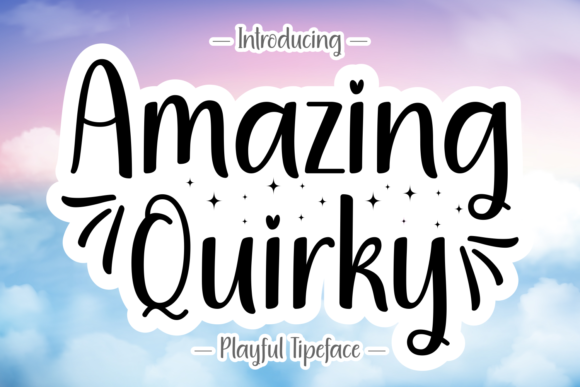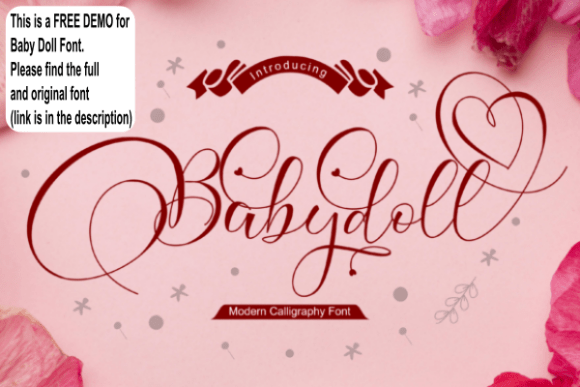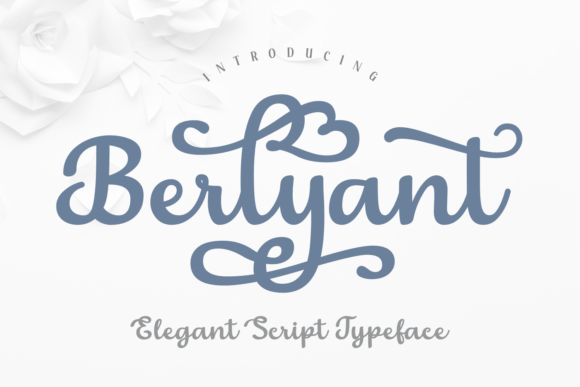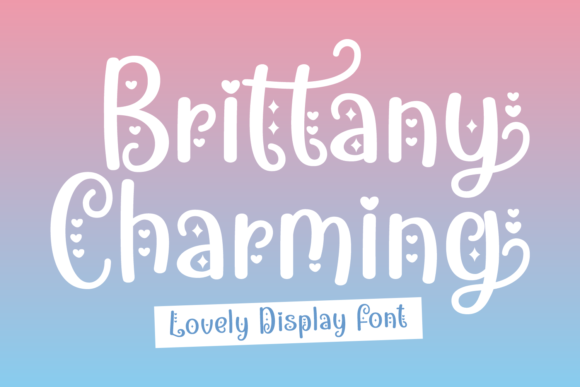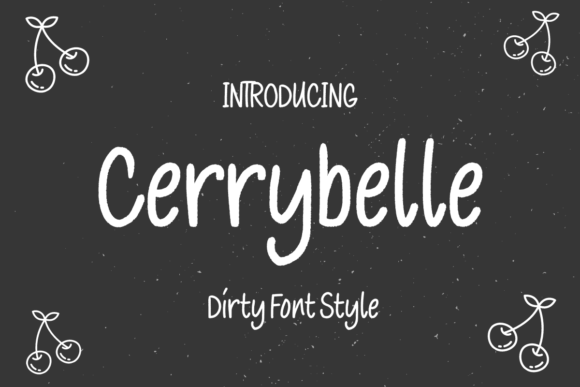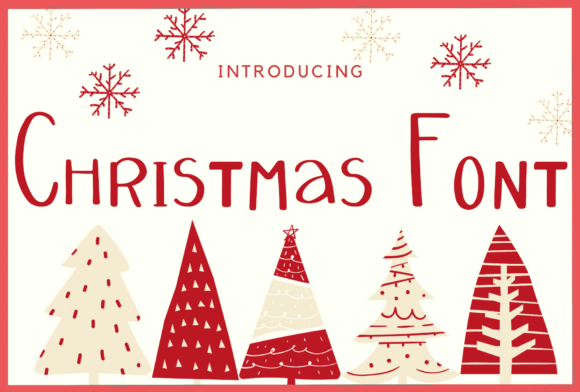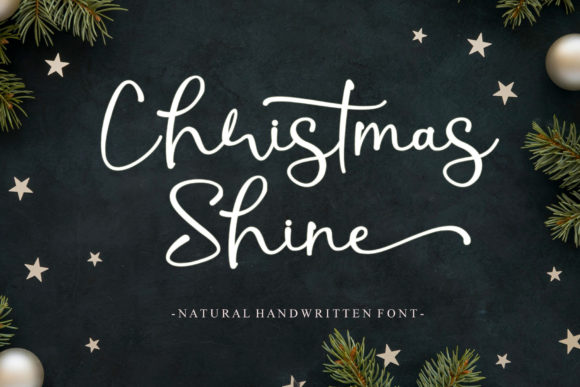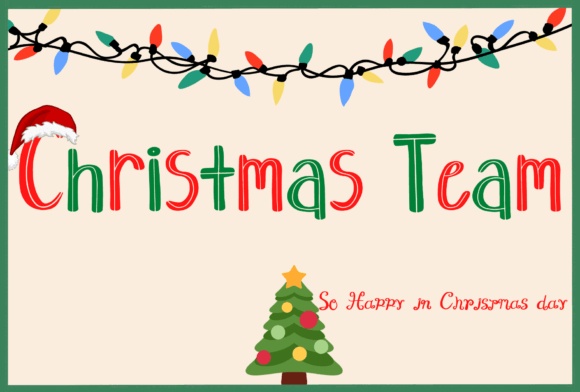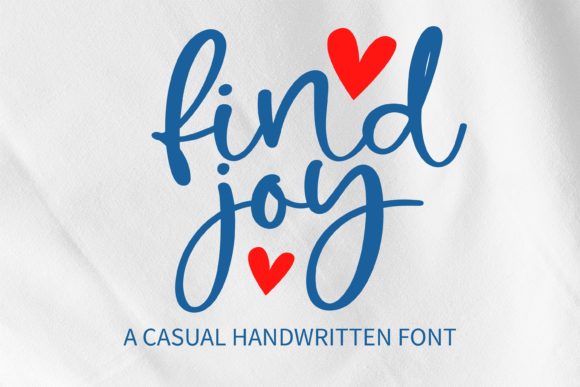
Free Handwritten Fonts: 26 Best Cute & Casual Picks (2026)
Free handwritten fonts cover a different mood than formal script: think casual notes, playful cards, and warm, personal branding rather than black-tie elegance. Here are 26 free handwritten fonts with a cute, friendly feel, several built specifically for kids’ projects, classroom material, and seasonal cards.
Quick Picks
| Best Overall | Cerrybelle – a sweet, simple handwritten font that fits almost any project |
| Best for Kids | Elliane – a friendly style made for children’s themed designs |
| Best for Christmas | Christmas Shine – a refined script for holiday branding and cards |
| Most Playful | Something – a cute, casual, relaxed handwritten font for notes and cards |
When to Reach for a Casual Handwritten Font
Free handwritten fonts in this cuter, more casual register work best when a project wants to feel personal and approachable rather than formal. That covers a lot of ground: birthday cards, classroom worksheets, planner headers, and small-batch product labels all benefit more from a friendly handwritten font than a polished wedding script. Several fonts below were purpose-built for children’s activities and school projects, so they stay legible even for young readers.
26 Free Handwritten Fonts
1. Anastasia
Best for: General Design
Anastasia is a playful and well-rounded handwritten font. This gentle font will look gorgeous on a variety of design ideas.
2. Babydoll
Best for: General Design
Babydoll is a romantic and sweet handwritten font with characters and alternates that seem to dance along the baseline.
3. Amazing Quirky
Best for: General Design
Amazing Quirky is a fun and playful handwritten font. It looks lovely on a variety of design ideas that require a trendy touch.
4. Berlyant
Best for: General Design
Berlyant is a beautiful and distinct script font.
5. Brittany Charming
Best for: General Design
Brittany Charming is a chic and whimsical handwritten font. Featuring characters that dance along the baseline, this font will add a luxury spark to any design project you wish to create!
6. Sparkle Shine
Best for: Quote Graphics
Sparkle Shine is a cute and simple Handwritten font that you can use for all chalkboard quotes or teaching material!
7. Gient
Best for: General Design
Gient is a modern and playful handwritten font perfect for crafters and designers alike.
8. Something
Best for: Invitations, Cards & Stationery
Something is a cute, casual and relaxed handwritten font. It works great for letters, cards, notes and even informal invitations.
9. Butterfly Wish
Best for: General Design
Butterfly Wish is a gorgeous cursive script font with an impeccable style. It brings amazing alternates and swashes that will cheer up your favorite projects!
10. Yanty Janeta
Best for: General Design
Yanty Janeta is a lovely and stylish freebie script font. .
11. Holidays
Best for: General Design
Holidays is an amazing script font created in freestyle for crafters and artists.
12. Beyond
Best for: General Design
Beyond is a beautiful and sweet handwritten font. It is fresh, clean, and elegant. This font will look amazing in a great number of projects, both formal and informal.
13. Starry Cakes
Best for: General Design
Starry Cakes is a whimsical script font with a relaxed theme, featuring a lovely style.
14. Christmas
Best for: Apparel & Merch, Cards & Stationery
Christmas is a fun and casual handwritten font. Use it to create unique t-shirt designs, baby onesies, nursery decorations, digital designs, cards, and many more.
15. Christmas Shine
Best for: Christmas & Holiday
Christmas Shine is a beautiful and refined script font.
16. Midnight Show
Best for: General Design
Midnight Show is an equally stylish and bold handwritten font that will turn any design idea into a true standout!
17. La Fleur
Best for: General Design
La Fleur is a modern and playful handwritten script font. It’s great for crafters and designers. Compatible with tools such as Photoshop and Silhouette design studio.
18. Cerrybelle
Best for: General Design
Cerrybelle is a sweet and simple handwritten font. Its natural and unique style makes it incredibly fitting to a large pool of designs.
19. Find Joy
Best for: General Design
Find Joy is a sweet and quirky handwritten font.
20. Mullia
Best for: General Design
Mullia is a sweet, soft hand-lettered script.
21. The Purple Love
Best for: General Design
The Purple Love is a modern and playful handwritten font perfect for crafters and designers.
22. Honey
Best for: General Design
Honey is a sweet and cursive handwritten font. This gentle font will look gorgeous on a variety of design ideas.
23. Lecture
Best for: General Design
Lecture is a cute handwritten script font. This font is characterized by thin italic characters and continuous lines.
24. Simple Free
Best for: General Design
Simple Free is a playful and casual looking handwritten font. This gentle font will look gorgeous on a variety of design ideas.
25. Christmas Team
Best for: Christmas & Holiday
Christmas Team is a fun and quirky handwritten font.
26. Northwest
Best for: General Design
Northwest is a modern and playful handwritten script font. It’s great for crafters and designers. Compatible with tools such as Photoshop and Silhouette design studio.
FAQ
Are free handwritten fonts good for classroom materials?
Yes, several fonts in this list, including Play Ink, Super Space, and Elliane, were specifically designed with children’s activities and school projects in mind.
Can I use free handwritten fonts for a small business?
What makes a handwritten font feel casual instead of elegant?
Casual handwritten fonts tend to have rounder letterforms, less baseline variation, and a bouncier rhythm. Elegant scripts lean into dramatic swashes and a more formal, connected flow.